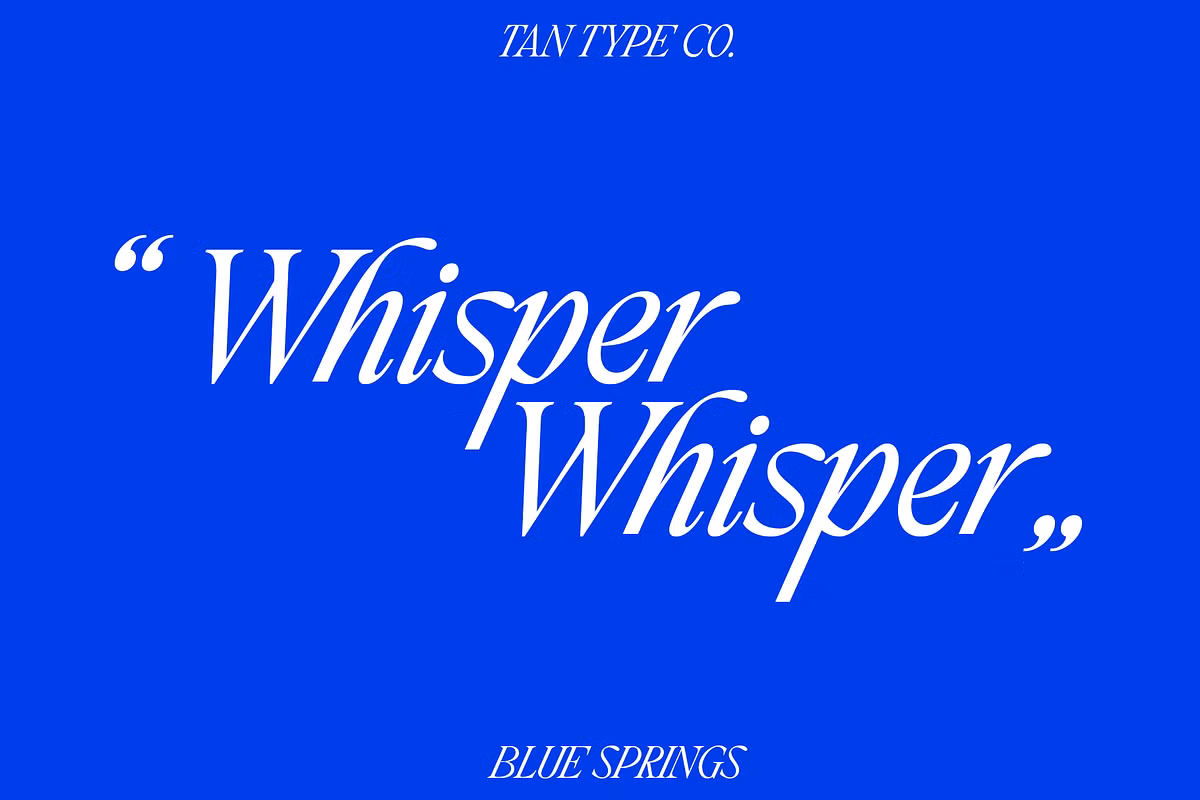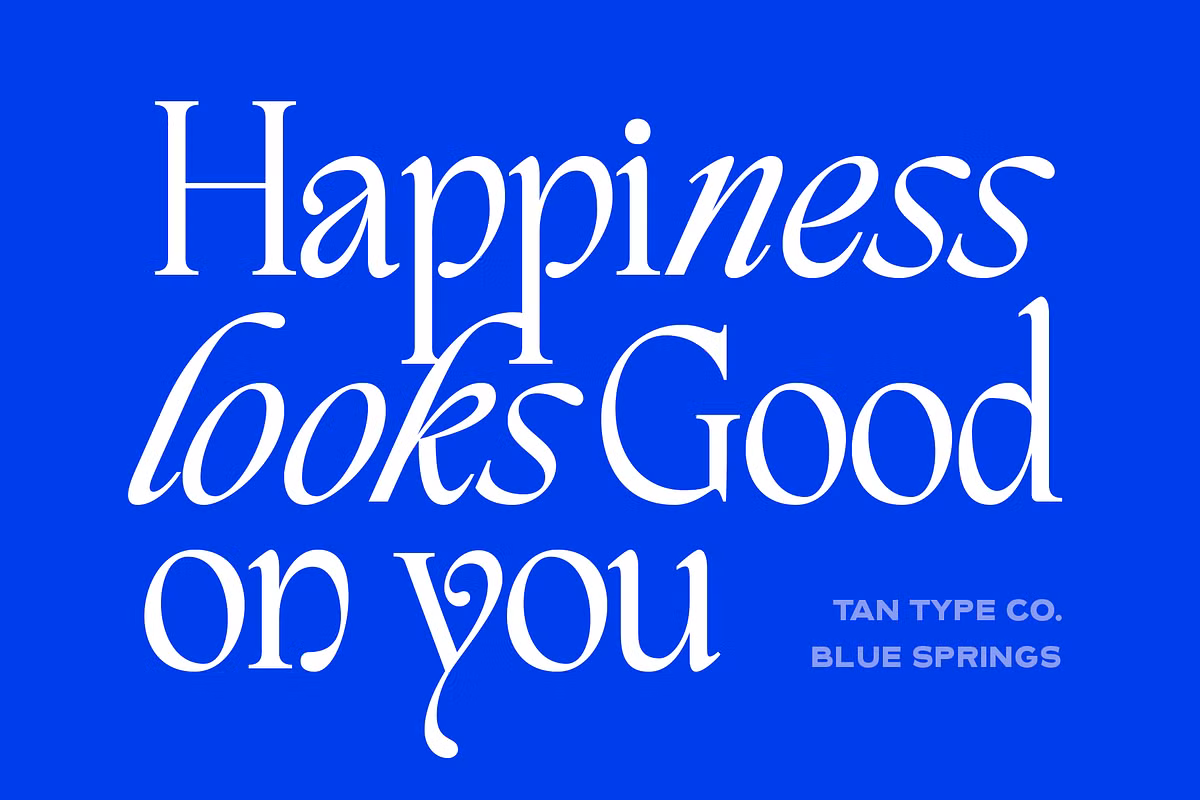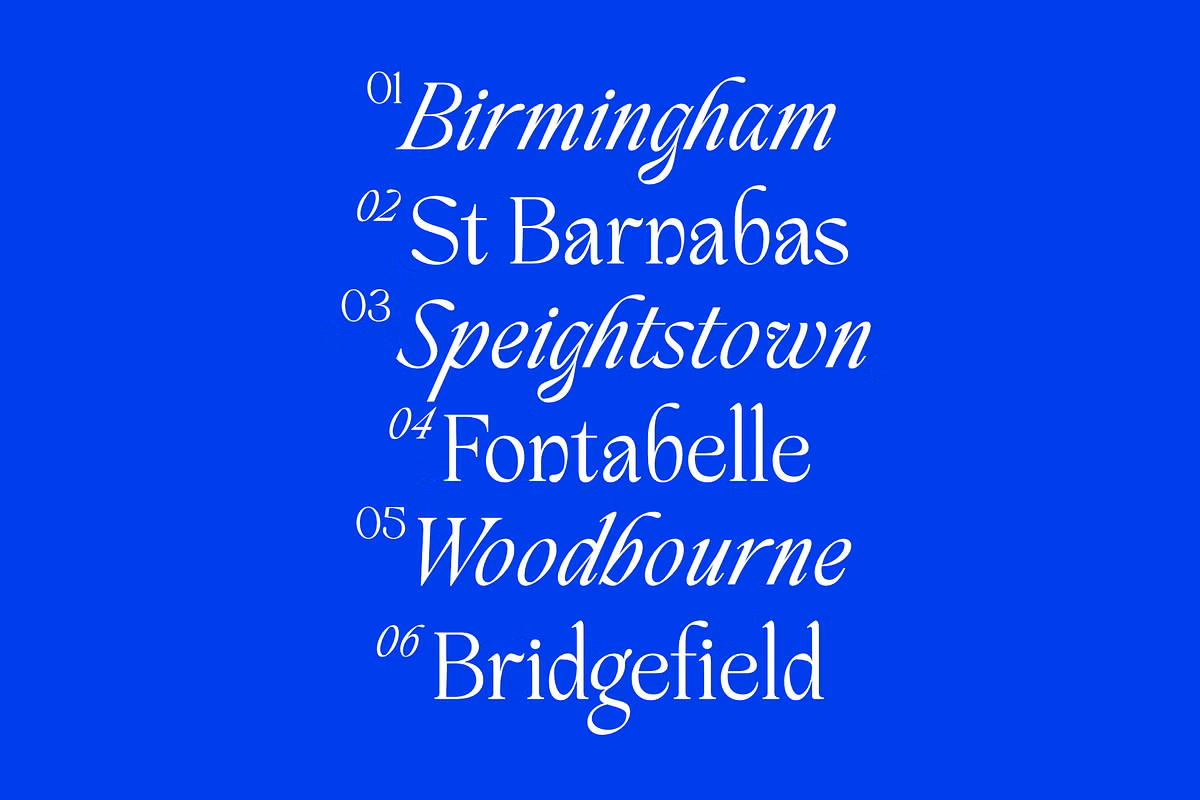
TAN – BLUE SPRINGS: Versatile Modern Classic Font for Creative Design
TAN - BLUE SPRINGS
TAN – BLUE SPRINGS: Versatile Modern Classic Font for Creative Design
Introduction to TAN – BLUE SPRINGS
TAN – BLUE SPRINGS is more than just a font – it’s a game-changer in the world of typography. This modern classic typeface has a certain charm that sets it apart from the rest. It’s elegant, yet playful, and it’s sure to grab attention and spark creativity. What makes TAN – BLUE SPRINGS so special is its versatility – it can be used for a wide range of projects, from branding to editorial design. So, whether you’re working on a new logo or a magazine layout, this font is the perfect choice to bring a fresh perspective to your work. With its unique blend of style and sophistication, TAN – BLUE SPRINGS is sure to make your designs stand out.
Typography showcasing TAN - BLUE SPRINGS font
The versatile TAN – BLUE SPRINGS font in action.
What makes TAN – BLUE SPRINGS stand out is its unique design style. It’s a mix of old and new, with classic typography and a modern twist. This font is perfect for those who want to add a touch of sophistication and playfulness to their designs. The regular version is clean and polished, while the italic version adds a bit of excitement and energy. The way the letters are shaped and connected is really thoughtful, making sure that your text is easy to read while still looking special.
This font is really special because it can fit in with lots of different design styles. So, whether you’re making a fancy logo or a casual flyer, TAN – BLUE SPRINGS is super flexible and can match your ideas. The fun twist in its design means it never gets old or boring, which makes it perfect for any creative project you’re working on. It’s great for making your designs stand out and look fresh.
Examples of TAN - BLUE SPRINGS in different design styles
Diverse applications of TAN – BLUE SPRINGS font.
Character Sets and Multilingual Support
TAN – BLUE SPRINGS comes equipped with a comprehensive character set that caters to a global audience. This font supports multiple languages, allowing for smooth integration into international projects. Whether you need accented characters for European languages or special symbols, this font has you covered.
Showcasing OpenType features of TAN - BLUE SPRINGS font
OpenType features enhance design elegance.
Use Cases for TAN – BLUE SPRINGS
TAN – BLUE SPRINGS is remarkably versatile, making it suitable for a wide array of design applications. Here are some common use cases:
• Branding: The style of this font is really nice, it’s fancy but also fun. This makes it perfect for making your brand stand out. You can use it for logos, cards that show your business, and other things you use to promote your brand, so people can see what your brand is all about.
• Editorial Design: TAN and BLUE SPRINGS can really make your editorial design stand out, whether it’s for a magazine or an online publication. These fonts add a level of elegance to both headings and body text, making your content look polished and refined.
• Invitations and Stationery: The font’s charm makes it perfect for wedding invitations and other event stationery, helping to create a beautiful and cohesive look.
• Social Media: Make your social media posts pop with a font that’s super modern and cool. It’s perfect for grabbing people’s attention in a crowded feed and making your graphics stand out.
Creative use of TAN - BLUE SPRINGS in social media posts
Engaging social media graphics with TAN – BLUE SPRINGS.